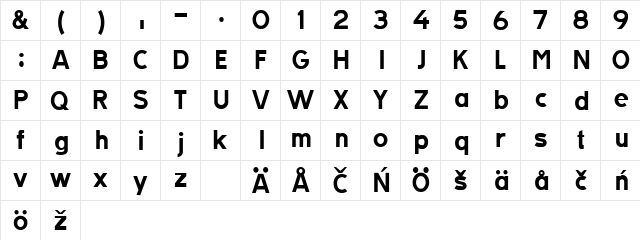
TratexSvart Regular
Design Context for TratexSvart Typeface
TratexSvart is a composed and adaptable typeface that performs quietly and consistently across a wide range of design contexts.